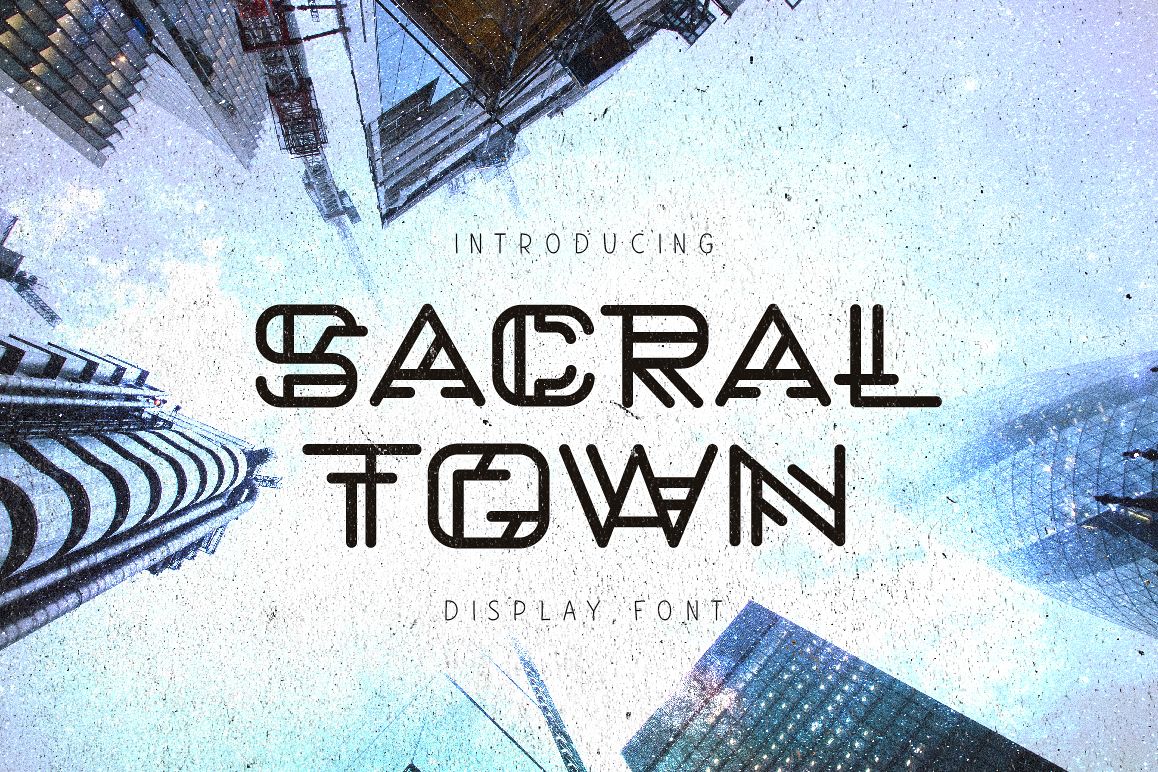
Sacral Town
sacraltown-Regular
Sacral Town is a linear geometric font. It comes with all caps uppercase and lowercase characters, large set of punctuation glyphs and numerals. Ideal for logos, posters, branding projects, product packaging, t-shirt, etc.